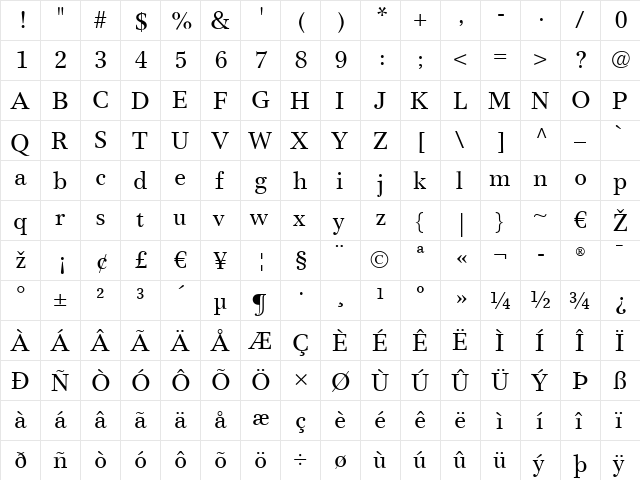
Iridium LT Regular Regular
| Designer | Adrian Frutiger |
Design Context for Iridium LT Regular Typeface
Iridium LT Regular is a composed and adaptable typeface that performs quietly and consistently across a wide range of design contexts. The delicate stroke weight brings airiness and refinement to layouts.
Pro Tip: Use Iridium LT Regular in both headline and body roles to test its range before committing to a single application.